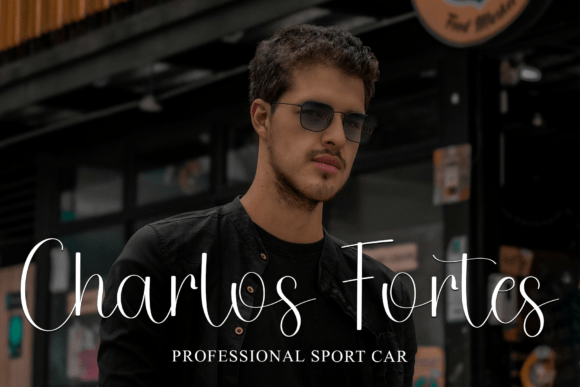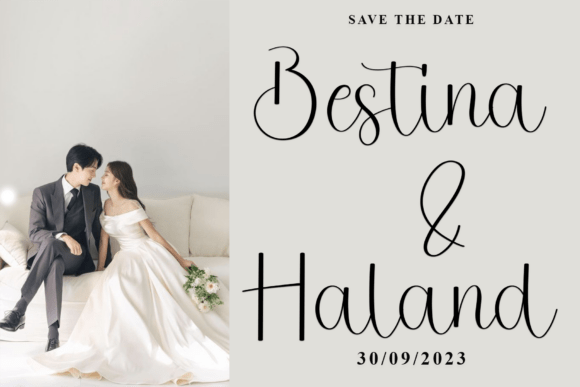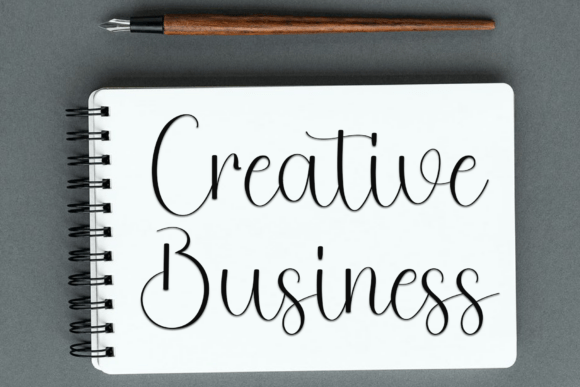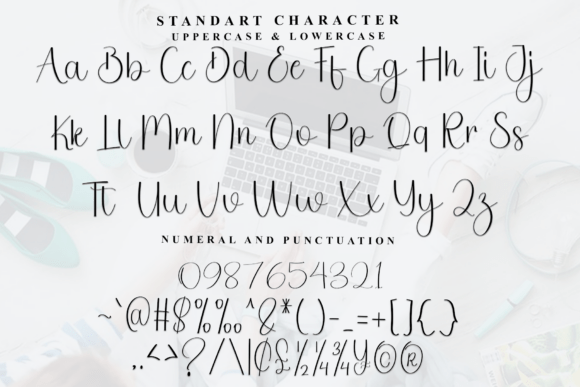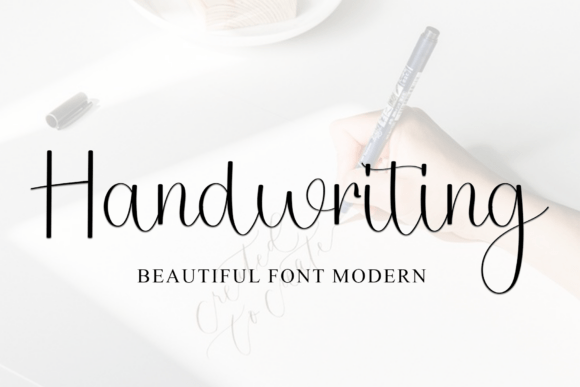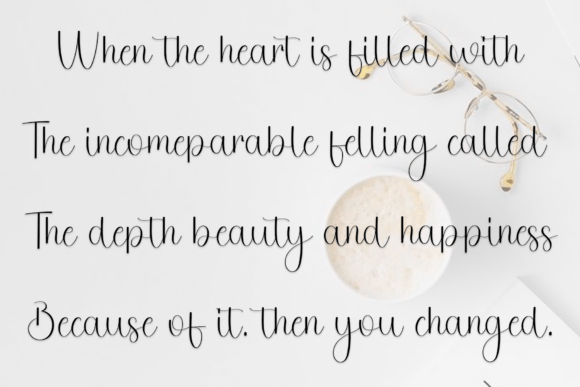
The Magic of Authentic Birthday Font: Bringing Whimsy to Your Designs
As a designer, there’s nothing quite like the rush of creating something special for a loved one’s birthday. You’ve poured over ideas, carefully selected the perfect colors and patterns, and finally settled on the perfect font – and that’s where the Authentic Birthday Font comes in.
This festive and merry typeface is the perfect addition to any birthday design. With its decorative elements and whimsical flair, it adds a touch of enchantment to your words, making it a must-have for greeting cards, gift tags, and holiday-themed projects. The Authentic Birthday Font brings a cheerful and nostalgic ambiance to your words, making it a valuable asset for any designer looking to add a little magic to their typography.
Authentic Birthday Font Key Features
- Unique Characteristics: The Authentic Birthday Font features a hand-drawn, cursive design with a mix of uppercase and lowercase letters, perfect for adding a personal touch to birthday cards and decorations.
Authentic Birthday Font Review
Overall, I’d say the Authentic Birthday Font is a decent addition to any designer’s toolkit. Here are the things that stand out:
- ✨ Unique and playful character set: The font has a fun, celebratory feel to it, making it perfect for birthday invitations, party decorations, or any other project that requires a touch of whimsy.
- ✨ Wide language support: The font is available in multiple languages, making it a great option for designers who work with clients from diverse backgrounds.
- ✨ Easy to customize: The font is highly customizable, allowing designers to adjust the size, color, and spacing to fit their project’s needs.
- ⚠️ Limited legibility: While the font is fun and playful, it can be difficult to read at smaller sizes or in certain contexts.
- ⚠️ Not suitable for formal projects: The font’s playful nature makes it better suited for casual or creative projects, rather than formal documents or presentations.
In conclusion, the Authentic Birthday Font is a solid choice for designers who need a fun, celebratory font for their projects. While it may have some limitations, its unique character set and wide language support make it a valuable addition to any toolkit.
Authentic Birthday Font is perfect for creating unique and personalized birthday invitations, cards, and decorations. To get the most out of it, experiment with different font sizes, colors, and styles to create a cohesive look. You can also use it to add a touch of personality to your social media posts and party graphics.